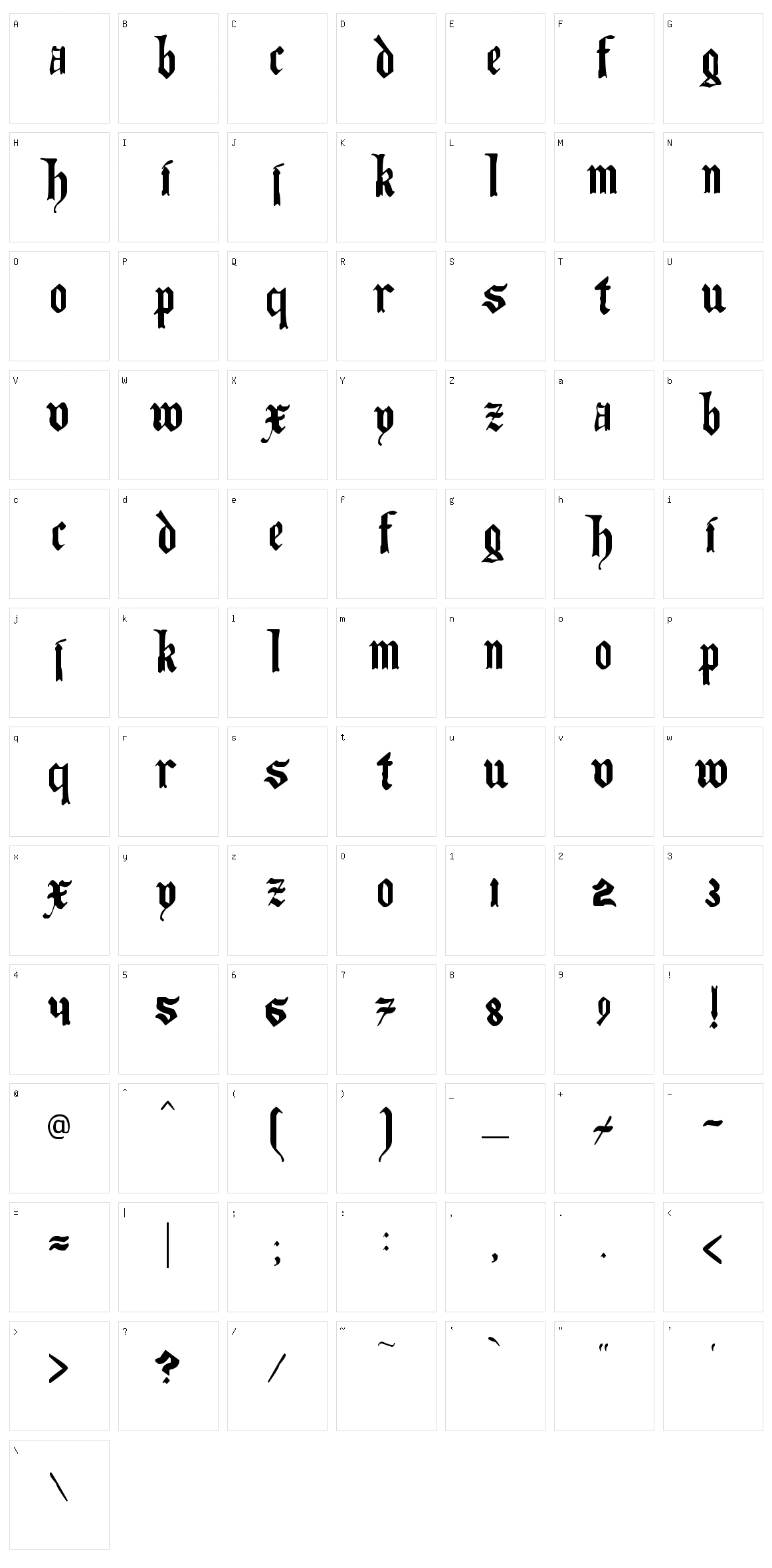
The Art of Illuminating
Designed by: Staffan Vilcans
Category: Medieval & Gothic
The Art of Illuminating font
Made by Staffan Vilcans.
Based on an image scanned from The Art of Illuminating As Practised in Europe from the Earliest Times by W. R. Symms, with an Essay and Instructions by M. D. Wyatt, Architect. London. Published April 2nd 1860 by Day and Son, Lithographers to the Queen.